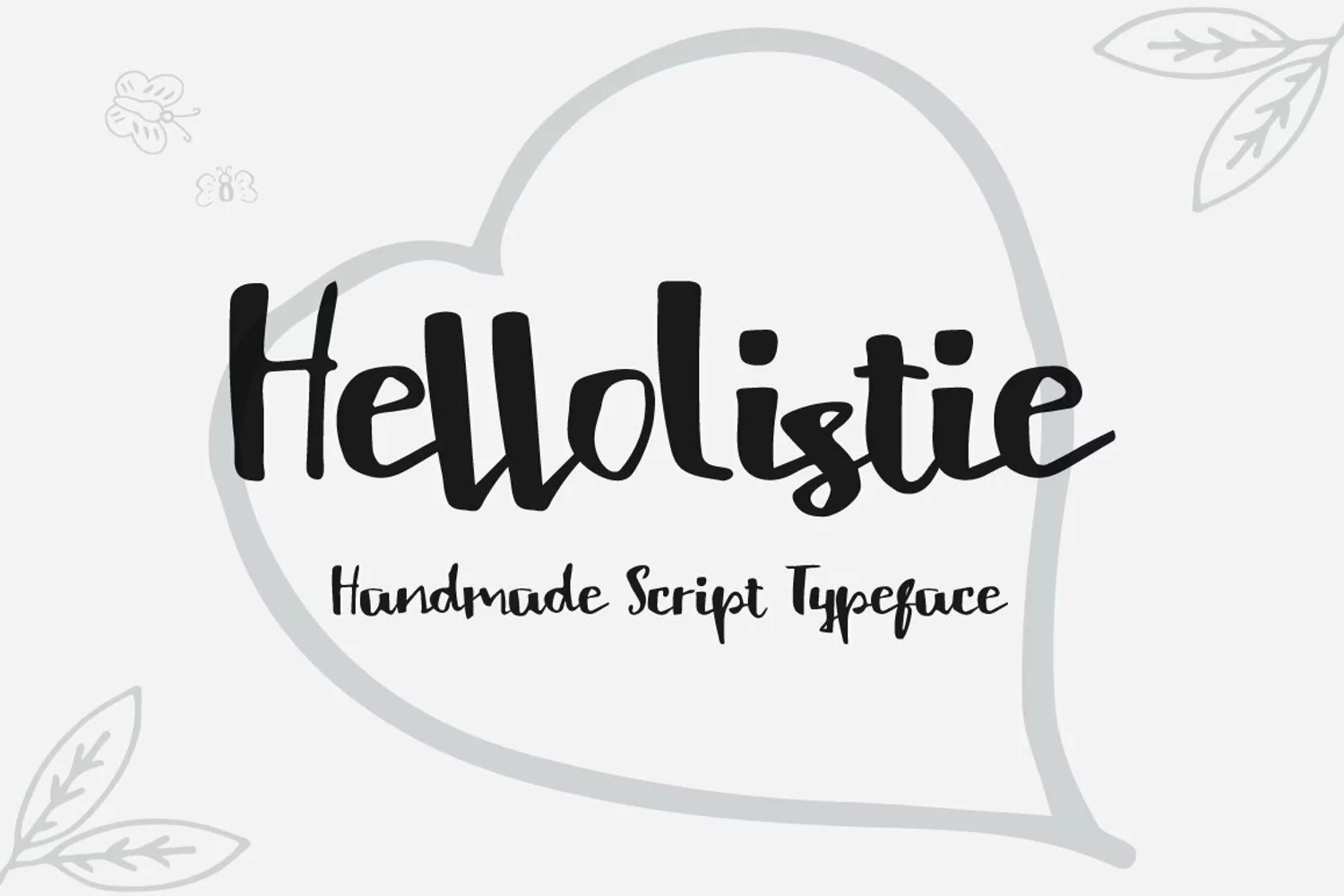
Introducing "HelloListie Handmade Script Typeface" Can be used for various purposes namely headings, logos, wedding invitations, t-shirts, letterheads, signages, labels, news, posters, badges etc. It is ONLY $8 for a limited time! :) Product Content: HelloListie Web Font woff Features: Uppercase Lowercase Numeral & Punctuations (Open Type Standard) Use a program that supports OpenType features such as Adobe Illustrator CS, Adobe Indesign & CorelDraw X6-X7 to access the full features of this typeface. How-to pdf included in the package. Feel free to contact me for additional supports.